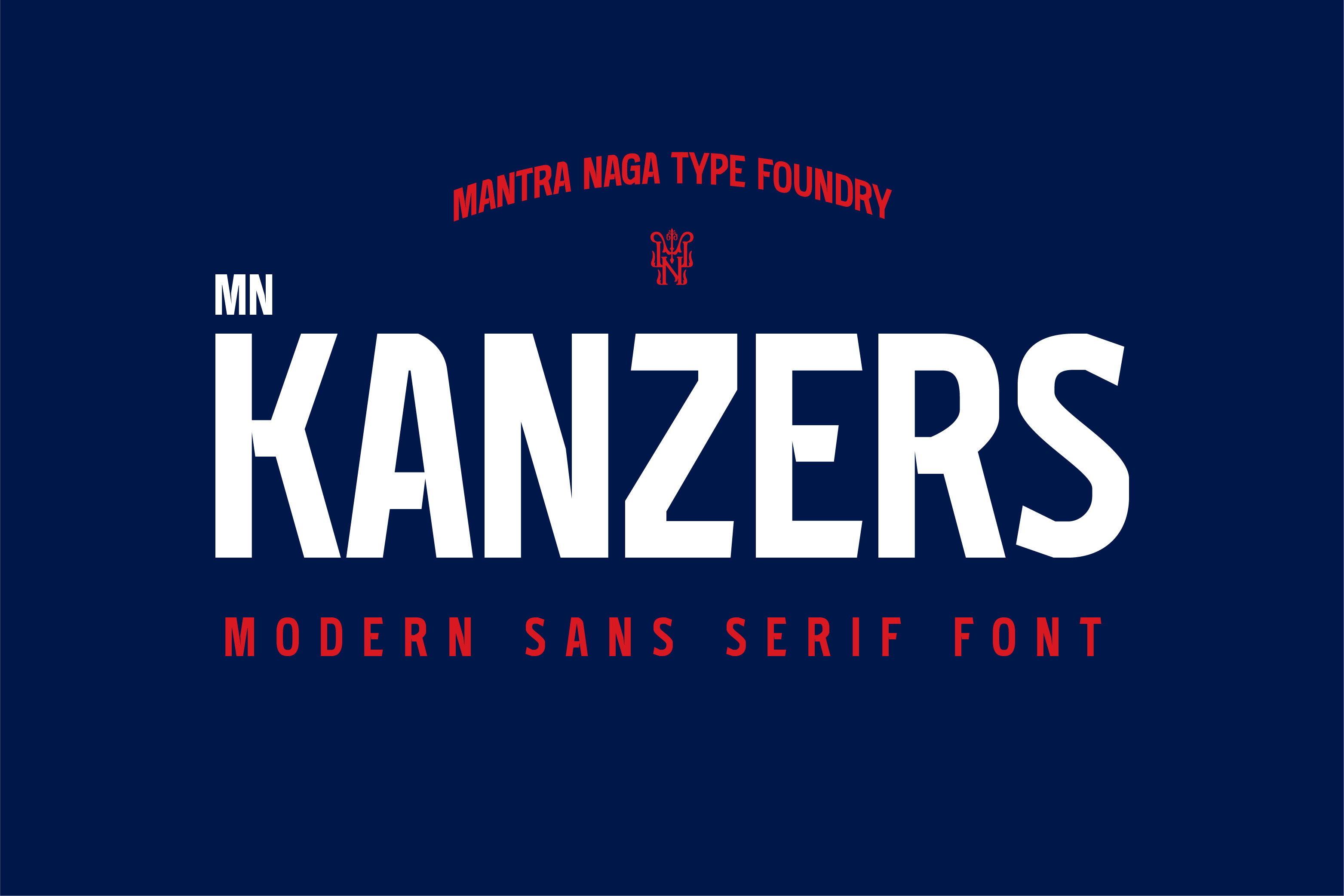
MN Kanzers - Modern Sans Serif Font
MN Kanzers is a modern sans-serif typeface that combines clean lines and carefully crafted curves with a unique touch of character. Its subtle inktraps, strategically placed in key areas of the letterforms, add both functional and aesthetic value. This versatile font is perfect for a wide range of design applications, from brand identity and bold poster designs to impactful headlines and digital displays. Its modern yet timeless feel ensures it stands out in display settings while maintaining excellent readability. Choose MN Kanzers for projects that demand a sleek, professional, and versatile font with a touch of personality.